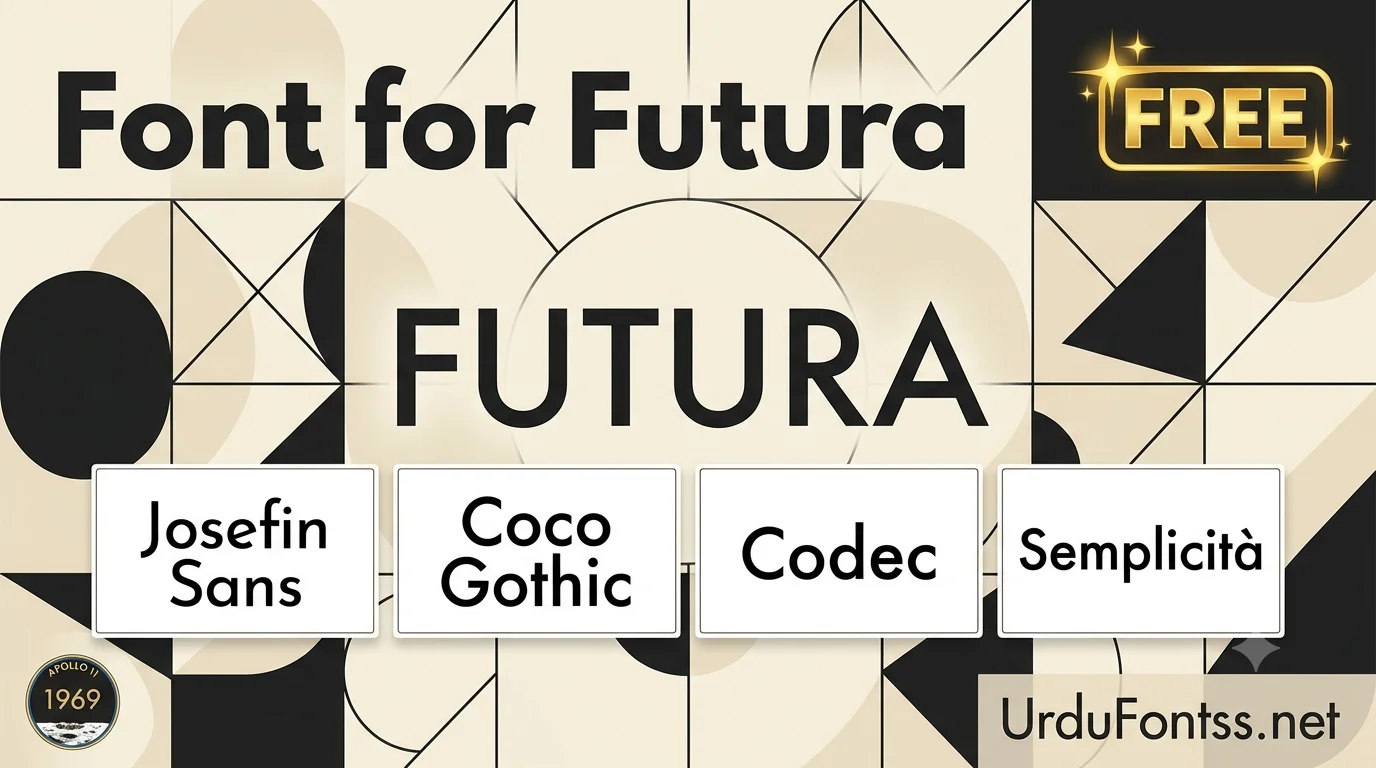
Font for Futura – Free Preview & Best Free Alternatives (2026)
Font for Futura — Free Preview & Alternatives
Looking for a font for Futura style without the commercial license? Explore the best free Futura alternatives — geometric sans-serif fonts that capture the clean, modern aesthetic of Paul Renner’s iconic 1927 typeface. This page is a preview guide — the fonts themselves are free at their official sources linked below. Type your text below to preview it in all 4 fonts instantly. 🔤 4 Free Fonts
Fonts for Futura — Best Free Futura Font Alternatives & Preview Tool
Quick Answer — What Are the Best Fonts for Futura?
If you love the clean, geometric look of Futura but need free alternatives, the best fonts for Futura style are Josefin Sans (elegant geometric), Poppins (modern geometric), Montserrat (bold geometric), Raleway (thin elegant), and Nunito Sans (balanced rounded). These free fonts capture the same minimalist, modern aesthetic that made Paul Renner’s 1927 typeface legendary.
Why Do Designers Search for Fonts for Futura?
Futura is not just a font. It is a design philosophy. Created by Paul Renner in 1927, Futura rejected the ornate, decorative typefaces of the past and embraced pure geometric forms — perfect circles, triangles, and straight lines. This was the Bauhaus movement in typography.
The font became so influential that NASA chose it for the Apollo 11 Moon landing plaque in 1969. Today, brands like Nike, Supreme, PayPal, Best Buy, and Volkswagen use Futura for their logos. It communicates modernity, efficiency, and timeless style.
What Are the Best Free Fonts for Futura Style?
After testing dozens of geometric sans-serif fonts, here are the top free alternatives that closely match Futura’s aesthetic.
1. Josefin Sans — Elegant Geometric Alternative
Josefin Sans is a geometric sans-serif with a distinctive vintage-meets-modern feel. Its light and italic weights particularly resemble Futura’s elegant side. The font has clean circular shapes and a tall x-height that makes it highly readable.
Best for: Fashion branding, elegant headlines, wedding invitations
2. Poppins — The Modern Geometric Powerhouse
Poppins is arguably the most popular free geometric sans-serif available today. Designed by Indian Type Foundry, it features pure geometric shapes with excellent readability. Its clean, modern look makes it a direct competitor to Futura for digital design.
Best for: Website headings, app interfaces, modern branding
3. Montserrat — Bold & Urban Geometric
Montserrat was inspired by the old posters and signs in the Montserrat neighborhood of Buenos Aires. It has a slightly wider, bolder geometric structure than Futura, making it excellent for headlines and display text.
Best for: Posters, YouTube thumbnails, bold branding
4. Raleway — Thin & Elegant Geometric
Raleway started as a single thin weight and expanded into a full 9-weight family. Its thin and extra-light weights are particularly striking and capture the delicate, high-fashion side of Futura.
Best for: Luxury branding, fashion magazines, minimalist designs
5. Nunito Sans — Balanced & Friendly Geometric
Nunito Sans is a well-balanced geometric sans-serif with slightly rounded terminals. It feels warmer and more approachable than strict geometric fonts while maintaining the clean Futura spirit.
Best for: Body text, user interfaces, educational content
6. Work Sans — Optimized for Screen Reading
Work Sans is a geometric sans-serif optimized for on-screen readability. It features a slightly condensed structure that works well in tight spaces while preserving geometric clarity.
Best for: Web body text, digital documents, e-books
Whether you choose the elegant Josefin Sans, the versatile Poppins, or the bold Montserrat, you are working with a font that honors the geometric design tradition while being completely free for any project — personal or commercial.